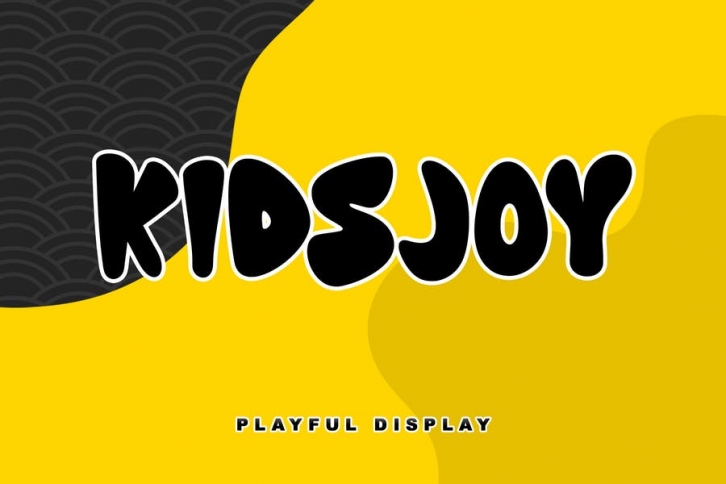
KidsJoy is a cool and friendly display font. Get inspired by its childlike charm and use it to create fun designs. This font is PUA encoded which means you can access all of the cute glyphs with ease!